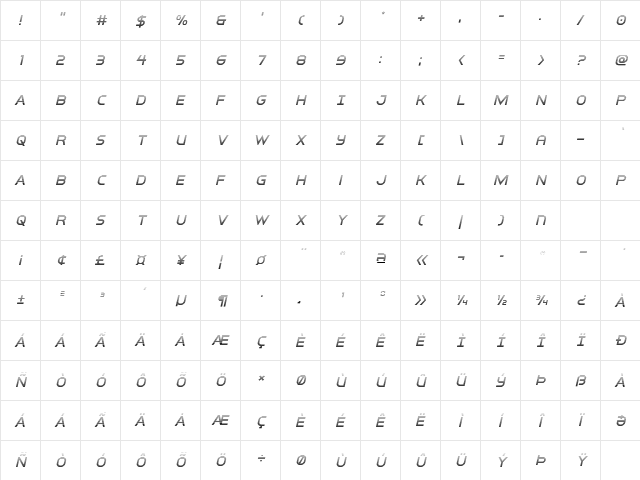
Complete Inter-Bureau Gradient Italic Italic glyph index. Displaying only characters natively supported by Inter-Bureau Gradient Italic Italic font.
Inter-Bureau Gradient Italic is a composed and adaptable typeface that performs quietly and consistently across a wide range of design contexts. The slanted form adds forward momentum and visual energy.